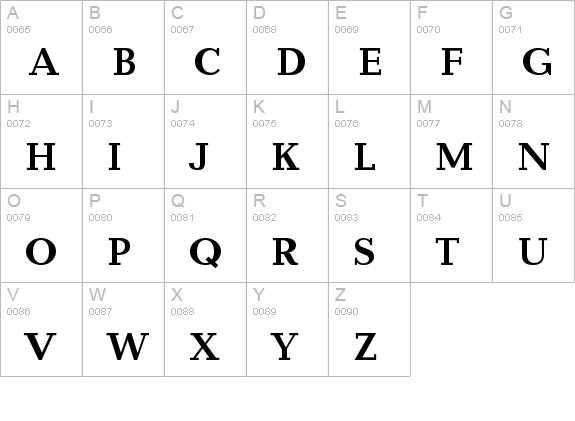
PM Baltica Bold Cyrillic Font Details
PM Baltica Bold Cyrillic is a strong, high-contrast variant in the PM typeface family \xE2\x80\x94 well suited to headlines, attention-grabbing titles, and strong calls-to-action.
PM Baltica Bold Cyrillic is a striking and robust typeface that commands attention with its bold and assertive presence. This font exudes a sense of strength and confidence, making it perfect for headlines, posters, and branding materials that require a bold statement. With its clean lines and sharp edges, PM Baltica Bold Cyrillic is a versatile choice for both print and digital designs. What sets PM Baltica Bold Cyrillic apart is not just its bold aesthetic, but also its wide range of characters that support the Cyrillic script. This makes it an ideal choice for projects that require multilingual support, particularly in languages that use the Cyrillic alphabet. Best of all, PM Baltica Bold Cyrillic is available for free download at FontsMarket.com. This means that you can easily access this powerful and impactful font for your design projects without any cost. Don't miss out on the opportunity to enhance your designs with the bold beauty of PM Baltica Bold Cyrillic.